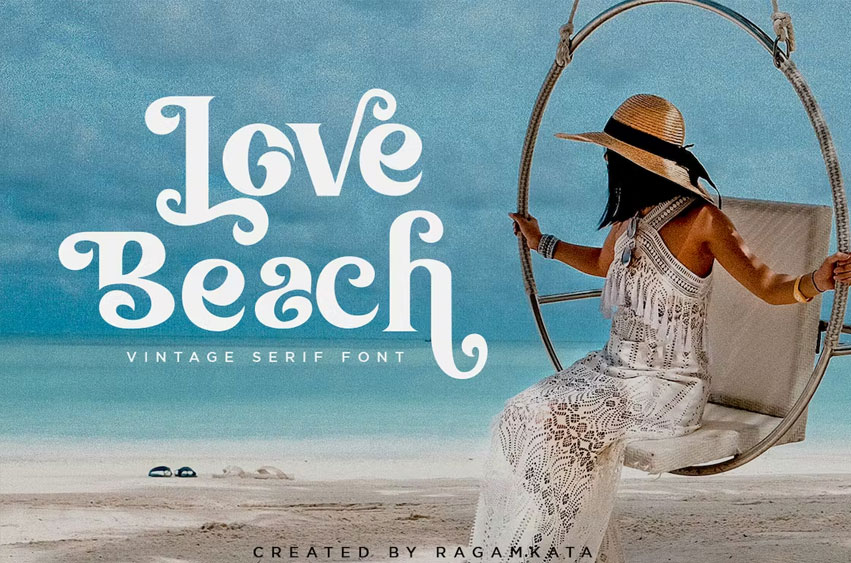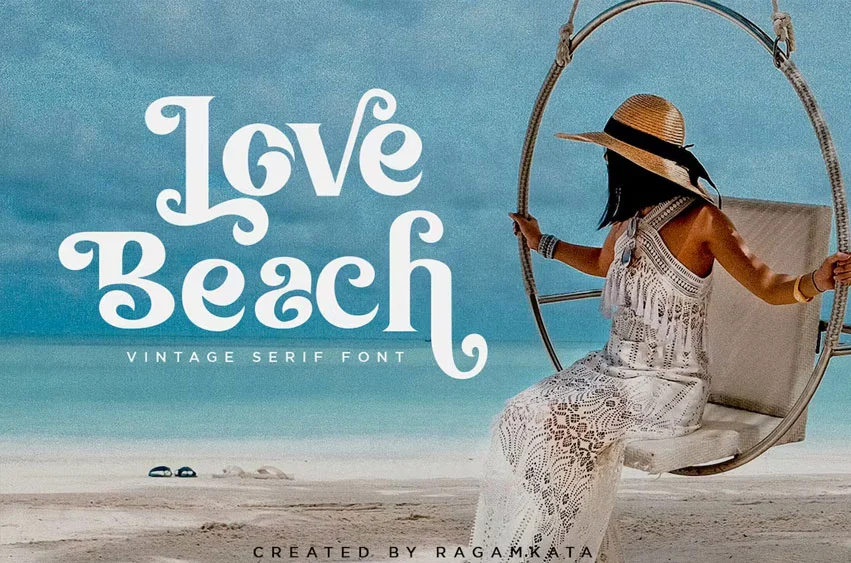
Love Beach Font
Love Beach Font is Vintage Serif Font with a touch of modernity. It looks amazing at display sizes and is easily readable in text size. Olive Village comes with access to your OpenType features, large selection of alternate glyphs.
Love Beach is a display font made mainly for headlines, titles, and other short texts and is well-suited for advertising, vintage mood board, branding, logotypes, packaging, titles, editorial design and modern and vintage design.